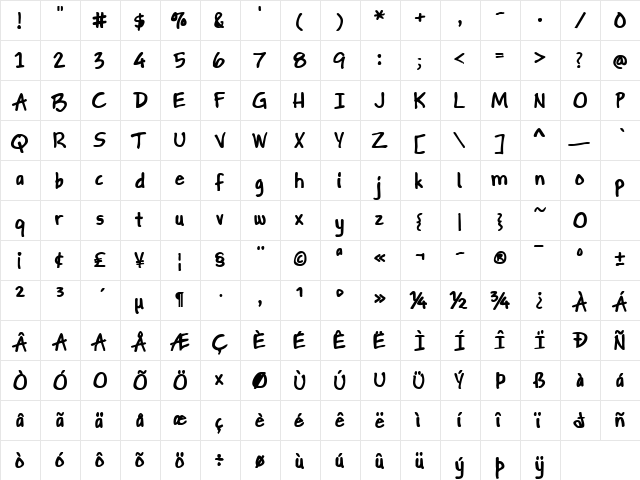
Gapstown Small AH Bold
Design Context for Gapstown Small AH Typeface
Gapstown Small AH is a composed and adaptable typeface that performs quietly and consistently across a wide range of design contexts. The heavy weight commands attention and anchors typographic hierarchies.